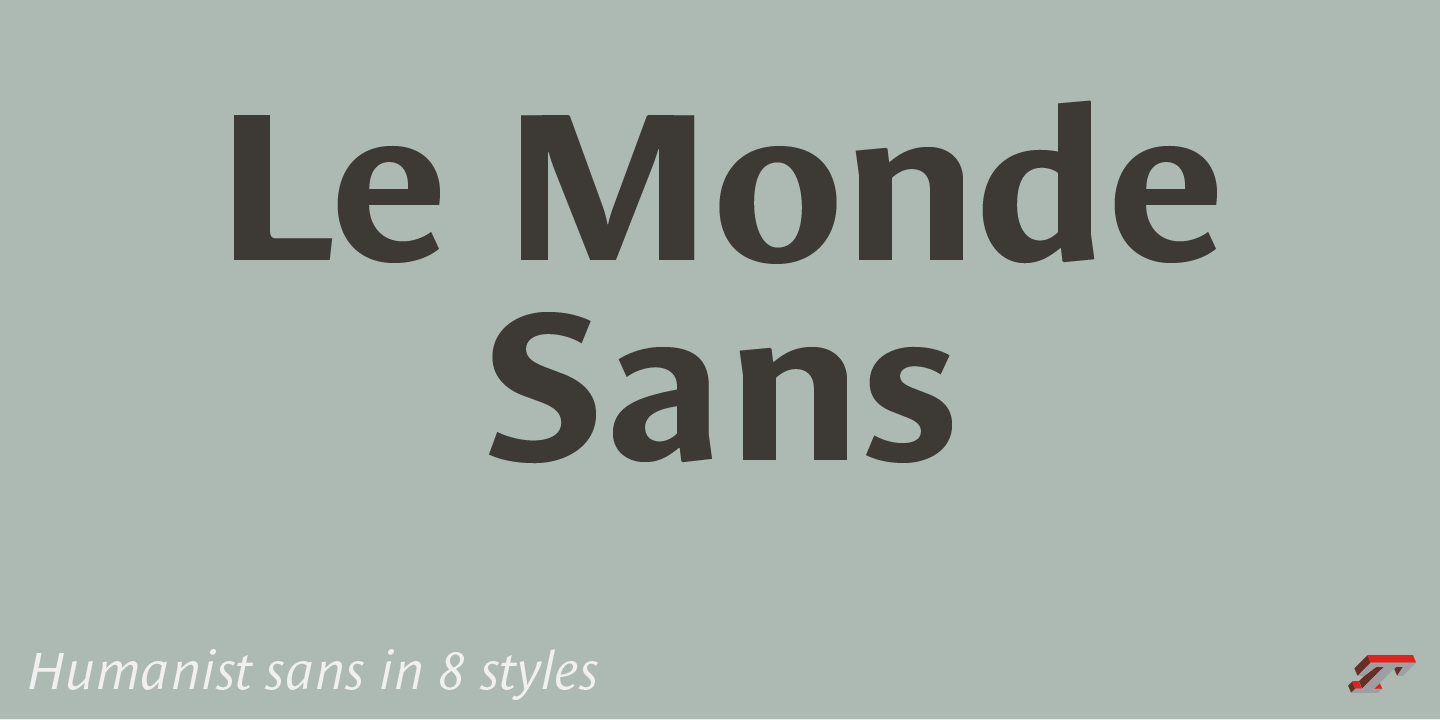
Le Monde Sans Std Font is a sophisticated and highly versatile humanist sans-serif typeface, renowned for its exceptional readability and elegant, modern aesthetic. Designed for clarity and adaptability, it's an outstanding choice for a vast array of contemporary design projects. Imagine it perfectly suited for high-end editorial design (magazines, newspapers, and digital publications), professional corporate branding, sleek website interfaces, clear and concise mobile app designs, impactful advertising campaigns, and sophisticated packaging. This font excels in environments where precision, functionality, and a refined visual language are paramount. It ensures your message is not only visually appealing but also effortlessly digestible, making it a powerful workhorse for effective and streamlined communication across all digital and print platforms.
What makes Le Monde Sans Std Font truly exciting is its intelligent blend of humanist warmth and modern efficiency. It carries a subtle, inviting quality in its letterforms that distinguishes it from more rigid geometric sans-serifs, while maintaining the crispness and legibility essential for diverse media. This font isn't just about displaying text; it's about creating a seamless reading experience, guiding the eye with its balanced proportions and refined curves. Its thoughtful design provides a sense of quiet authority and understated sophistication, making your content feel both trustworthy and approachable. Le Monde Sans Std Font Free Download is a powerful tool for designers and businesses aiming for a clean, professional, and globally resonant brand identity.
The Le Monde Sans Std Font family is typically extensive and robust, offering a comprehensive array of weights and styles to ensure maximum flexibility for diverse design projects. You'll often find it includes a full spectrum from ultra-light to regular, medium, bold, and even black weights, along with their complementary italic styles. This wide range provides ample options for creating clear typographic hierarchies and emphasizing different elements within your text. The "Std" (Standard) designation often indicates a broad character set, covering a wide range of Latin characters, numbers, and extensive punctuation, making it suitable for international use and complex textual layouts. This comprehensive family ensures that Le Monde Sans Std Font can adapt seamlessly to any design challenge, from subtle body text to commanding headlines, all while maintaining a consistent and harmonious visual language.